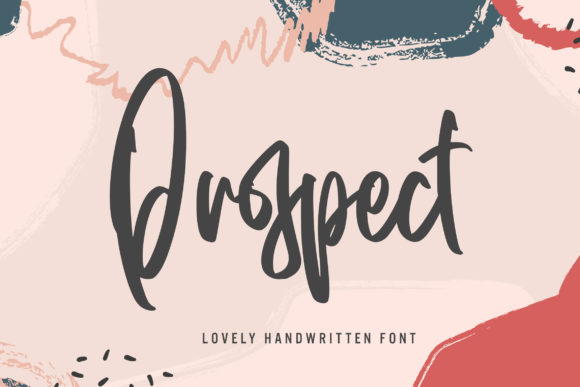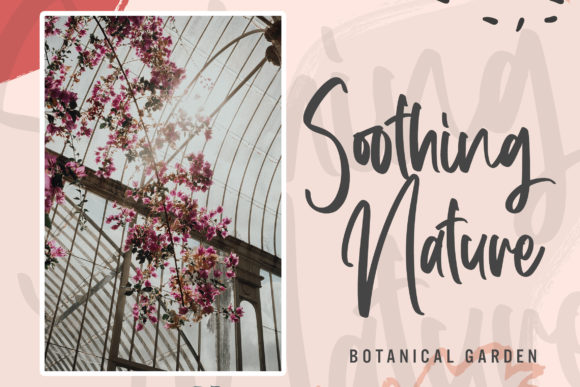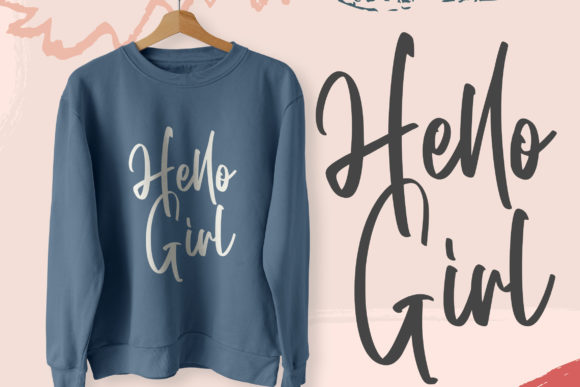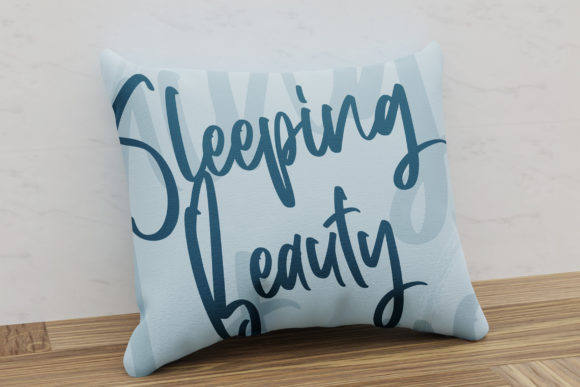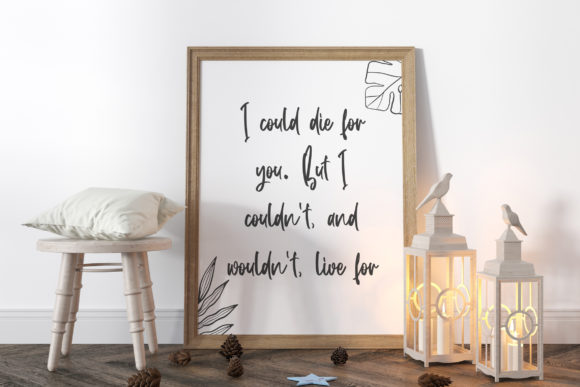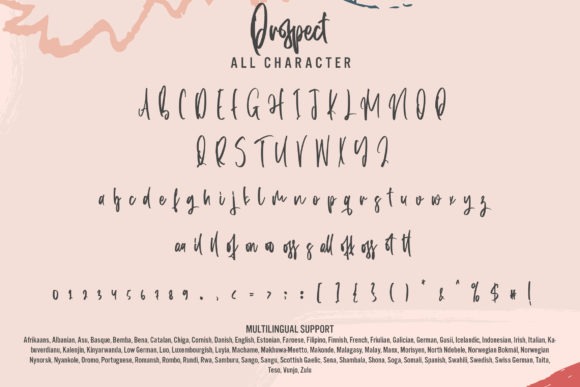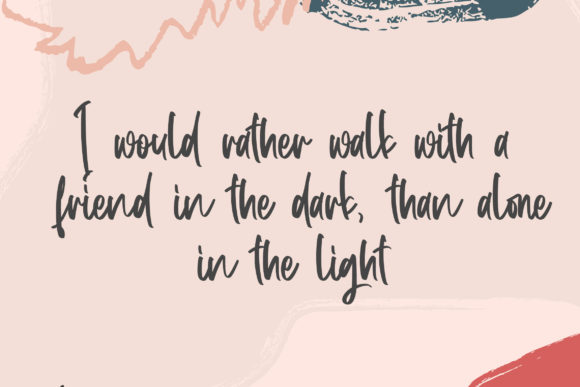
Prospect Font
About Prospect Font
Prospect is an exquisite handwritten font, masterfully designed to become a true favorite. It maintains its classy calligraphic influences while feeling contemporary and fresh. Fall in love with it and bring your projects to the highest levels!